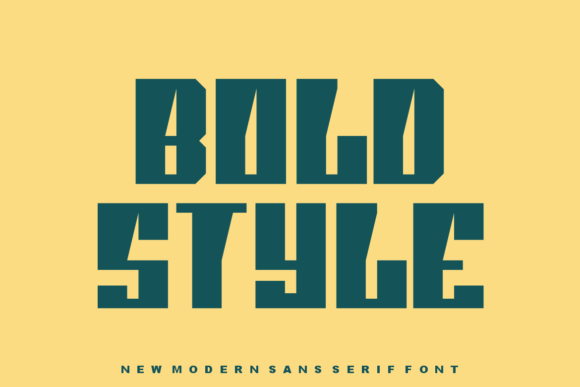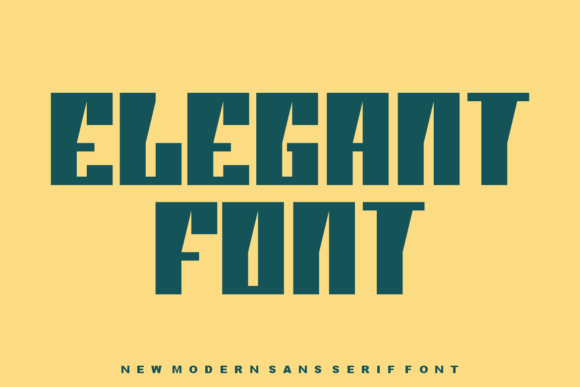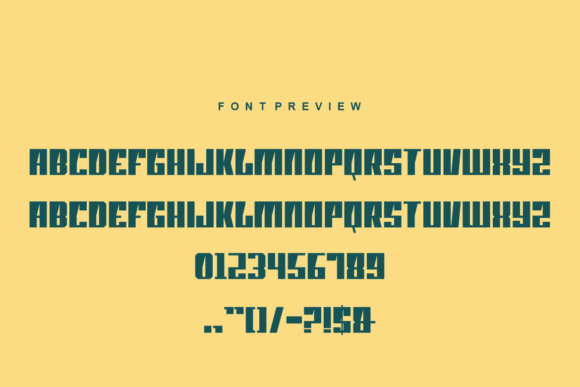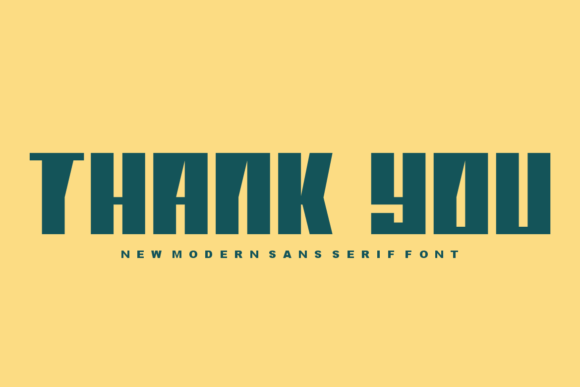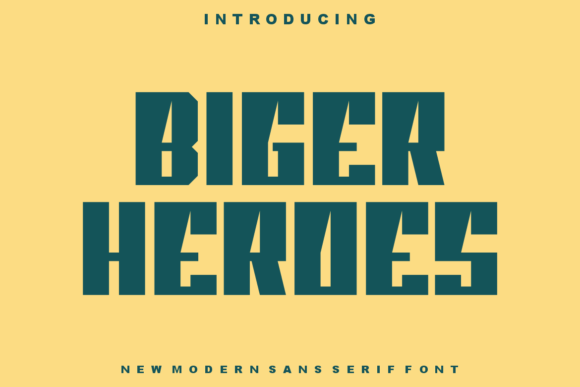
Biger Heroes Font: The Ultimate Modern Display Font for Designers and Crafters
In the world of typography, a good font can make all the difference in a design project. For designers and crafters looking for a bold and authentic display font, Biger Heroes Font is an excellent choice. This modern font is perfect for a wide range of applications, from logo design to t-shirt printing, and more. In this article, we’ll dive into the features and benefits of Biger Heroes Font, and explore how it can elevate your design projects.
What is Biger Heroes Font?
Biger Heroes Font is a bold and authentic display font designed to make a statement. Its modern and sleek design makes it perfect for designers and crafters who want to add a touch of sophistication to their projects. The font is versatile and can be used in various contexts, from branding and advertising to packaging and merchandise.
Key Features of Biger Heroes Font
• Bold and Authentic Design: Biger Heroes Font boasts a bold and authentic design that grabs attention and makes a lasting impression.
• Modern and Sleek: The font’s modern and sleek design makes it perfect for contemporary design projects.
• Versatile: Biger Heroes Font can be used in a wide range of contexts, from logo design to t-shirt printing, and more.
• Easy to Read: Despite its bold design, Biger Heroes Font is easy to read, making it perfect for headlines and titles.
Benefits of Using Biger Heroes Font
So, why should designers and crafters choose Biger Heroes Font for their projects? Here are some benefits of using this amazing font:
• Stand Out from the Crowd: Biger Heroes Font is designed to grab attention and make a statement. Use it to stand out from the crowd and make your design project memorable.
• Professional Look: The font’s modern and sleek design gives your project a professional look that’s perfect for branding and advertising.
• Time-Saving: Biger Heroes Font is easy to use and customize, saving you time and effort in your design project.
Use Cases for Biger Heroes Font
Biger Heroes Font is versatile and can be used in various design projects. Here are some use cases for this amazing font:
• Logo Design: Use Biger Heroes Font to create a bold and memorable logo for your brand.
• T-Shirt Printing: This font is perfect for t-shirt printing, adding a touch of sophistication to your designs.
• Branding and Advertising: Biger Heroes Font is ideal for branding and advertising projects, making your message stand out from the crowd.
• Packaging Design: Use this font to create eye-catching packaging designs that grab attention.
In conclusion, Biger Heroes Font is an excellent choice for designers and crafters looking for a bold and authentic display font. Its modern and sleek design makes it perfect for a wide range of applications, from logo design to t-shirt printing, and more. With its versatility, ease of use, and cost-effectiveness, Biger Heroes Font is a valuable addition to any design project.